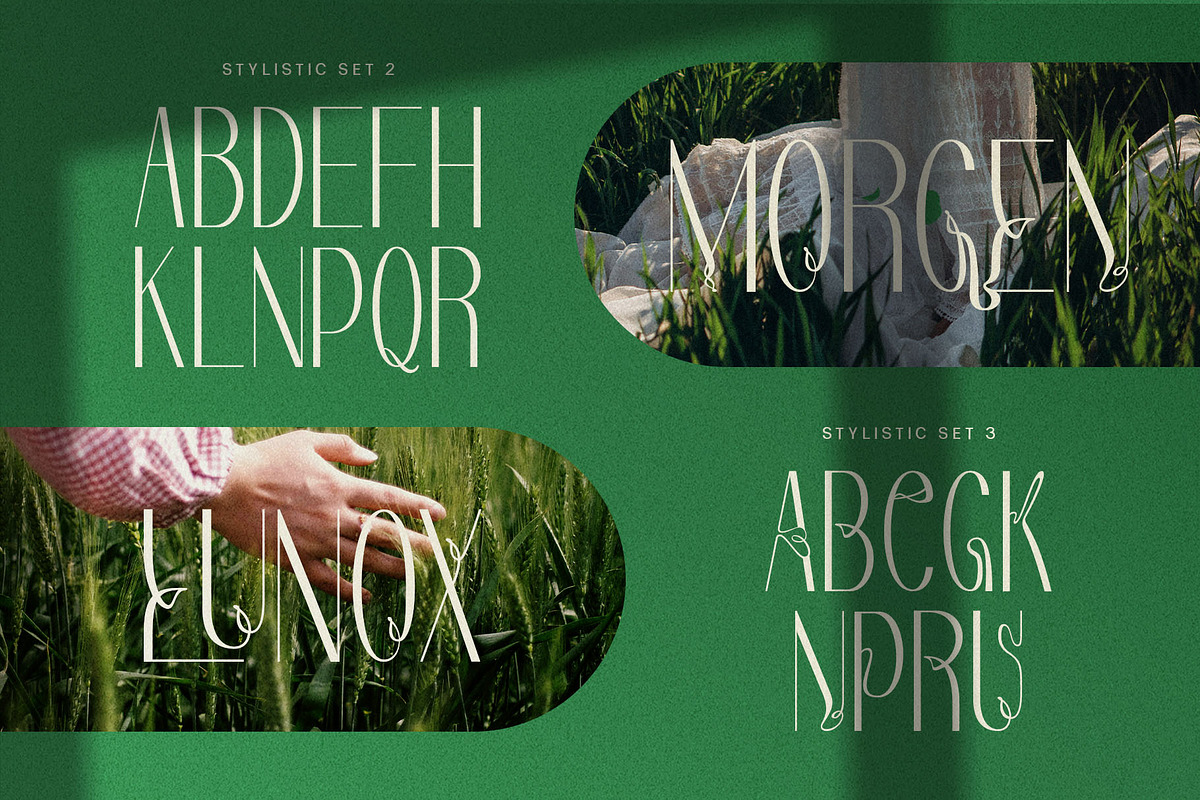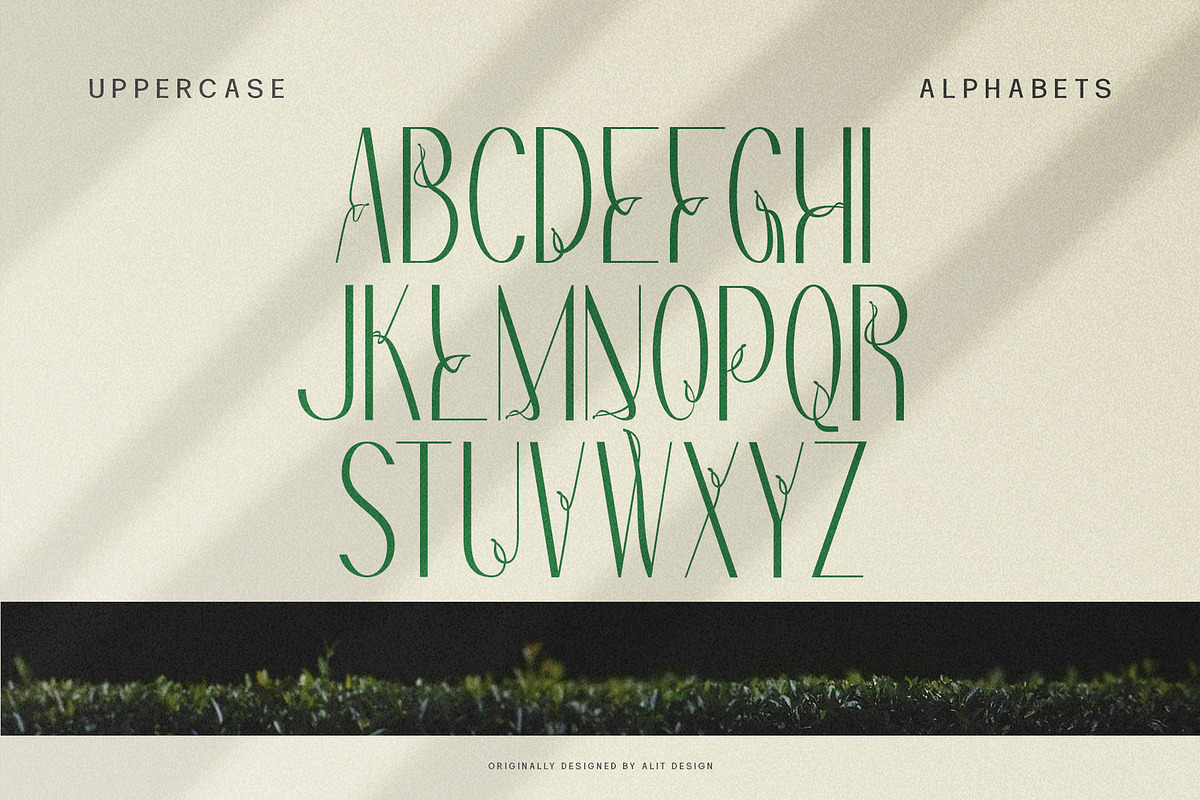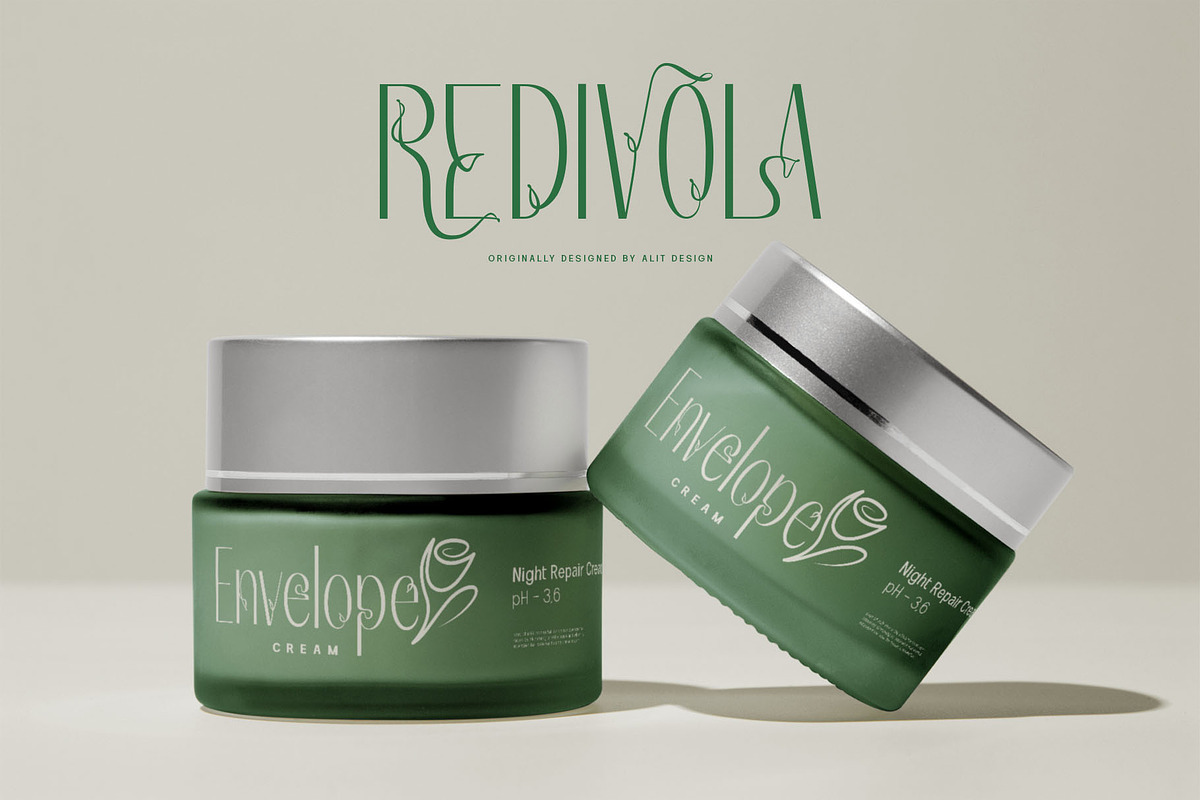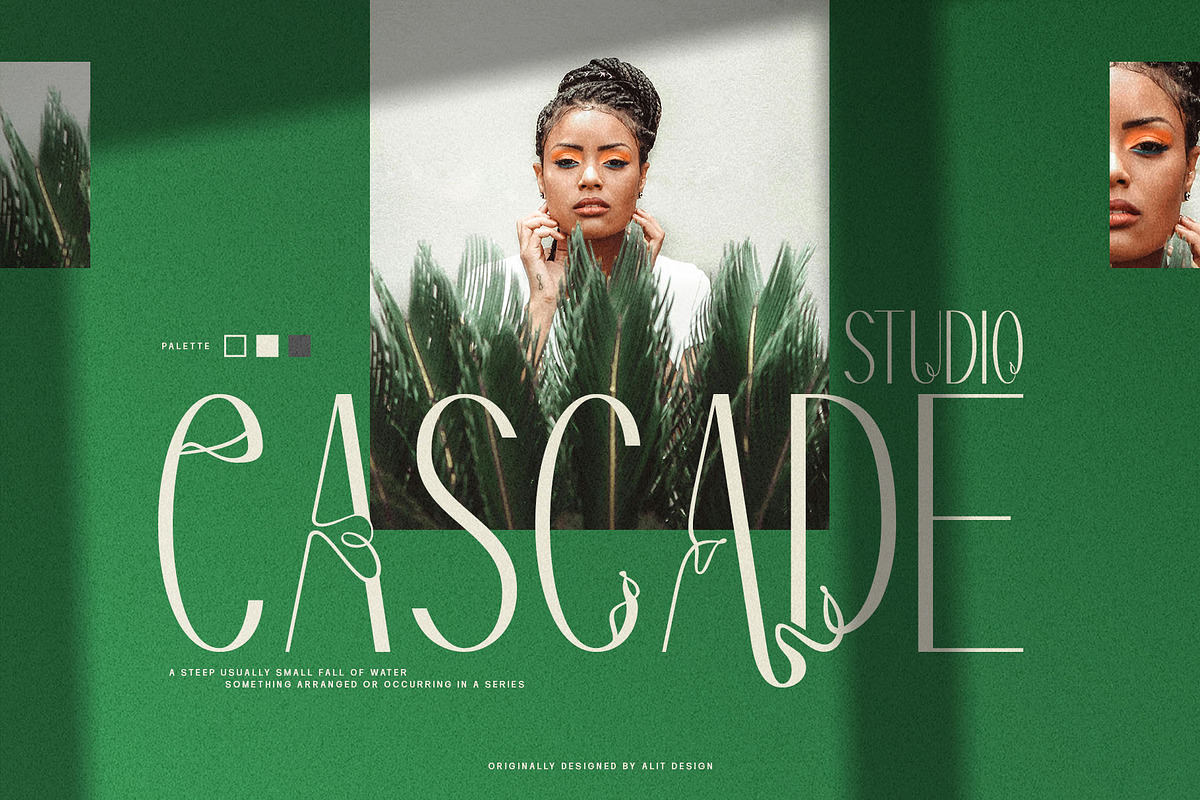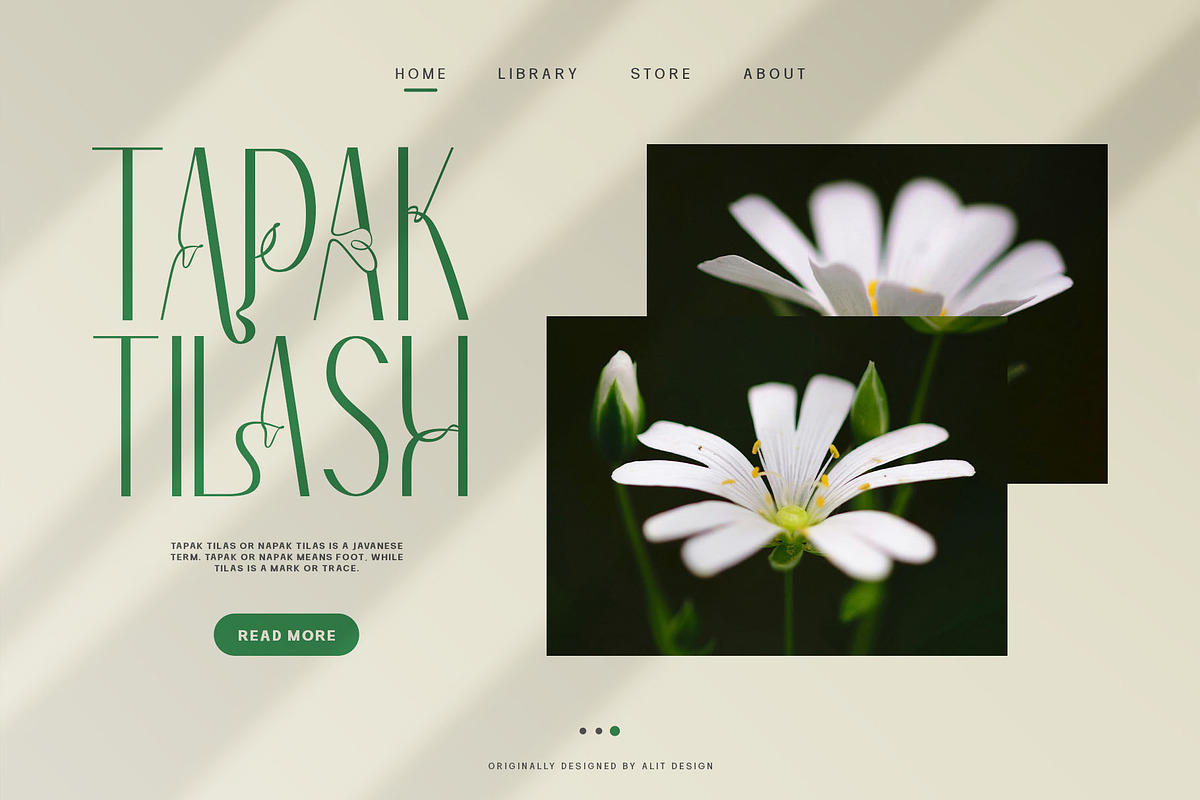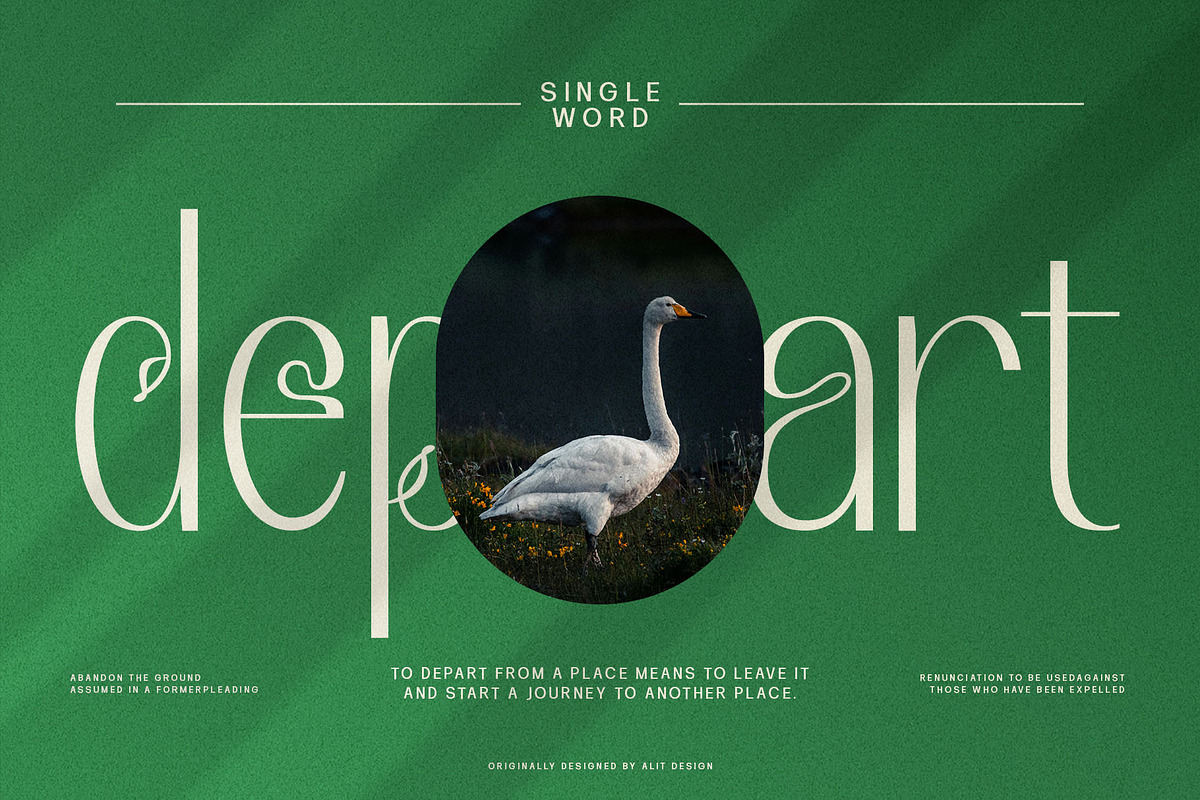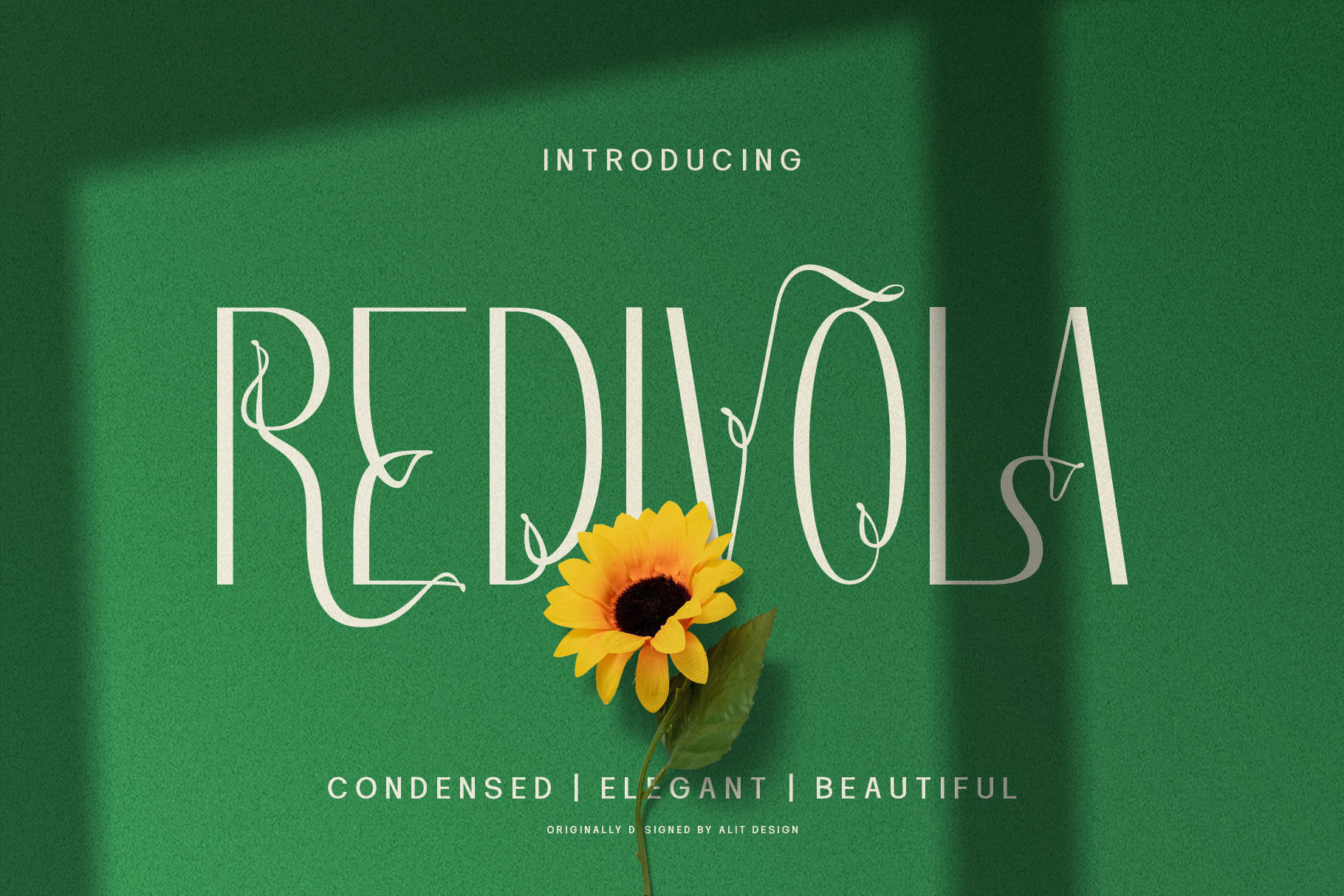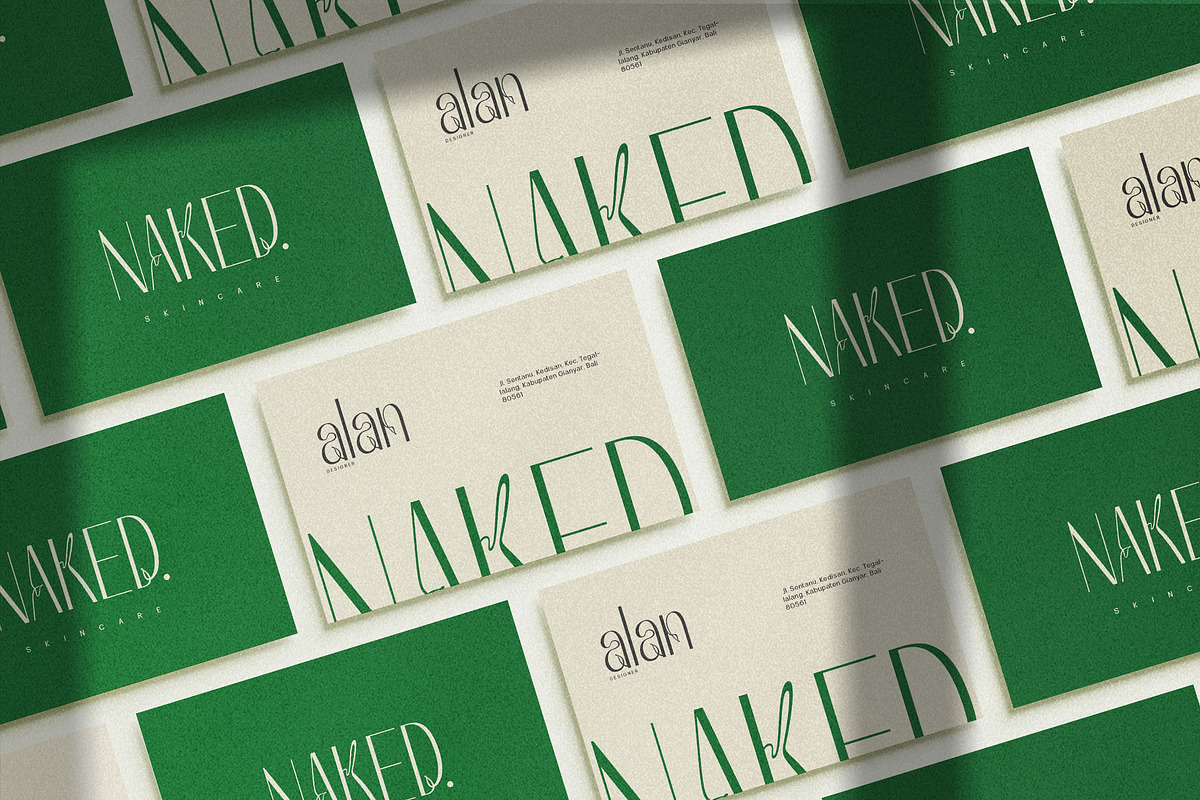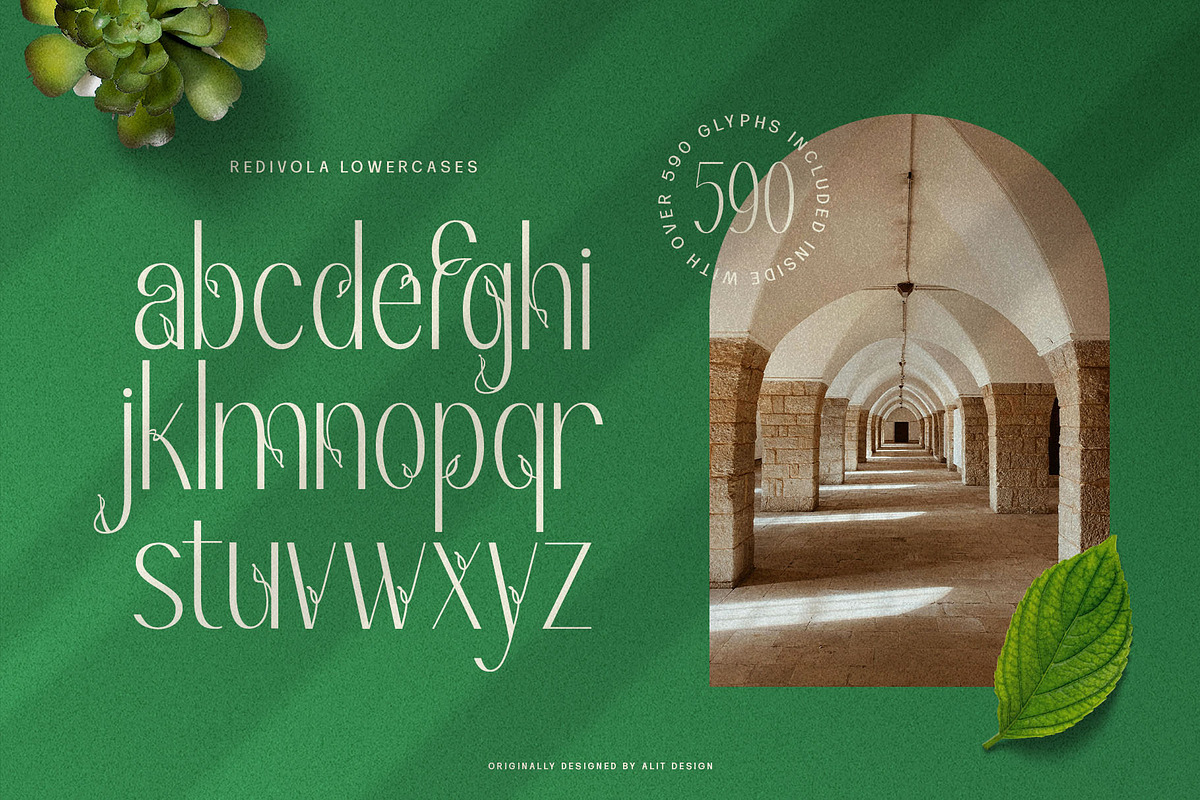
Redivola Typeface
Redivola Typeface: Elegance with Ribbon-Like Grace
Discover the refined charm of the Redivola typeface, where elegance meets innovation. Redivola is an exquisite sans serif font uniquely crafted with delicate, ribbon-like curves that bring an unmatched level of sophistication to your designs.
- Elegant Design: The sleek and modern sans serif structure is elevated by subtle ribbon-like details, creating a harmonious blend of simplicity and grace.
- Versatility: Perfect for a wide range of applications including branding, editorial design, web design, and more. Redivola adds a touch of class to any project.
- Unique Aesthetic: The ribbon-inspired curves set Redivola apart from traditional sans serif fonts, making it an ideal choice for designers seeking something truly distinctive.
- Multiple Weights: Available in a variety of weights, Redivola offers flexibility and adaptability to suit different design needs, from headlines to body text.
Applications:
- Brand Identity: Enhance your brand's visual identity with a typeface that exudes elegance and professionalism.
- Editorial Design: Bring sophistication to magazines, books, and digital publications with Redivola's timeless appeal.
- Web Design: Ensure readability and aesthetic appeal on digital platforms with a font that looks stunning on screens of all sizes.
- Packaging: Create luxurious and eye-catching packaging designs that stand out on the shelves.
Why Choose Redivola?
Redivola is more than just a font; it’s a statement of style and elegance. Its unique ribbon-like curves make it a standout choice for designers who value both form and function. With Redivola, every letter becomes a piece of art, transforming ordinary text into extraordinary visual experiences.
Embrace the elegance of Redivola typeface and elevate your design projects to new heights of sophistication.